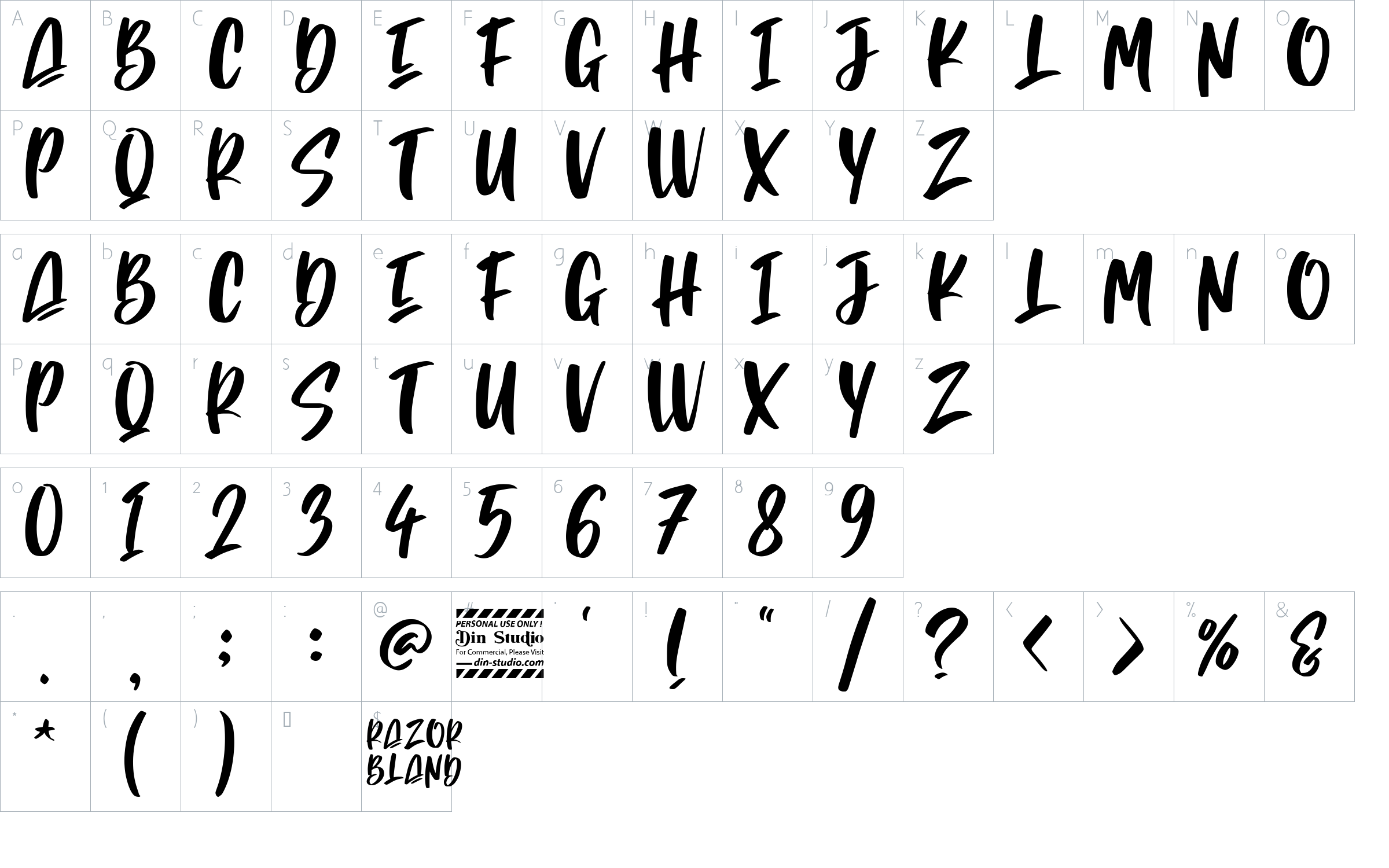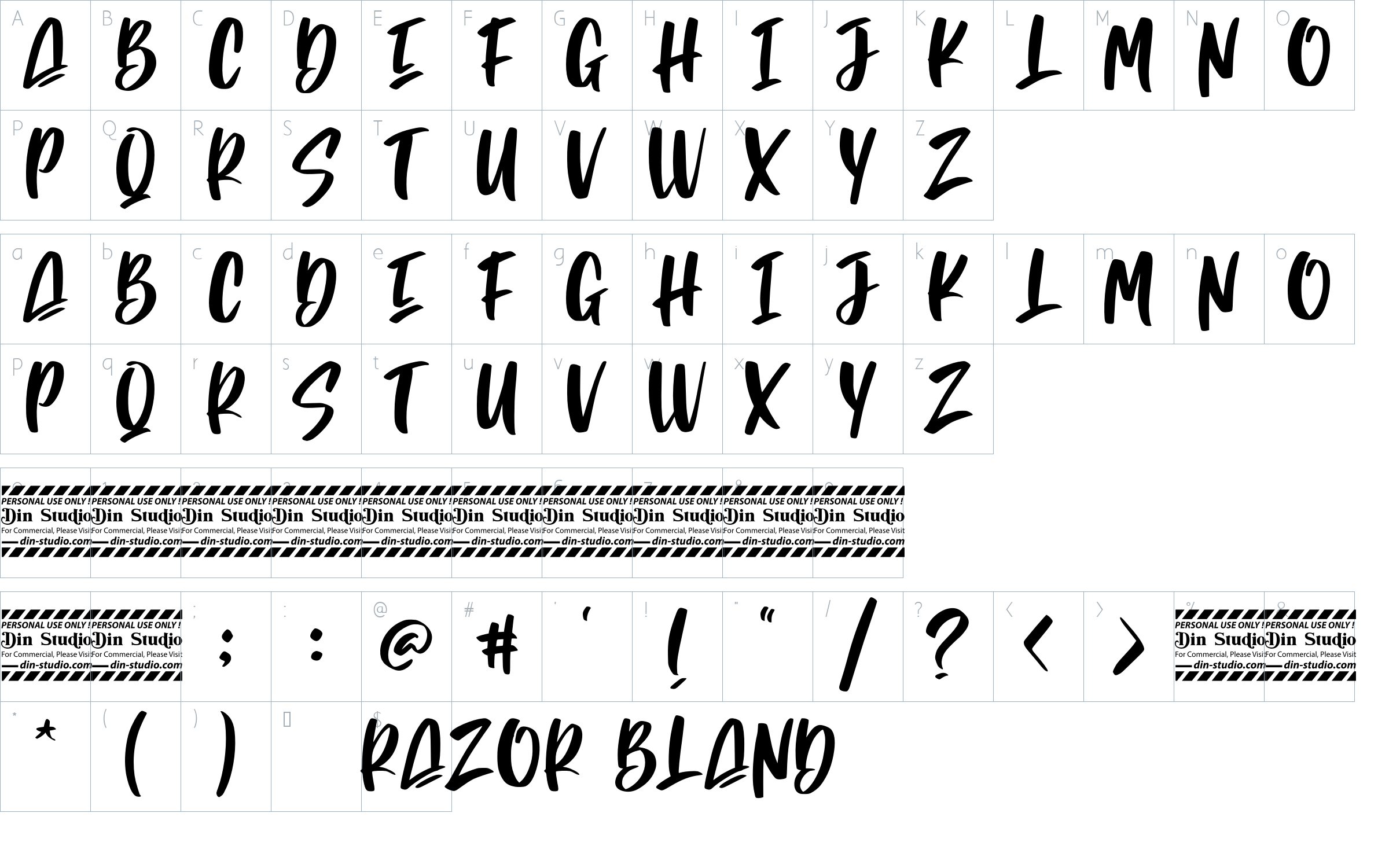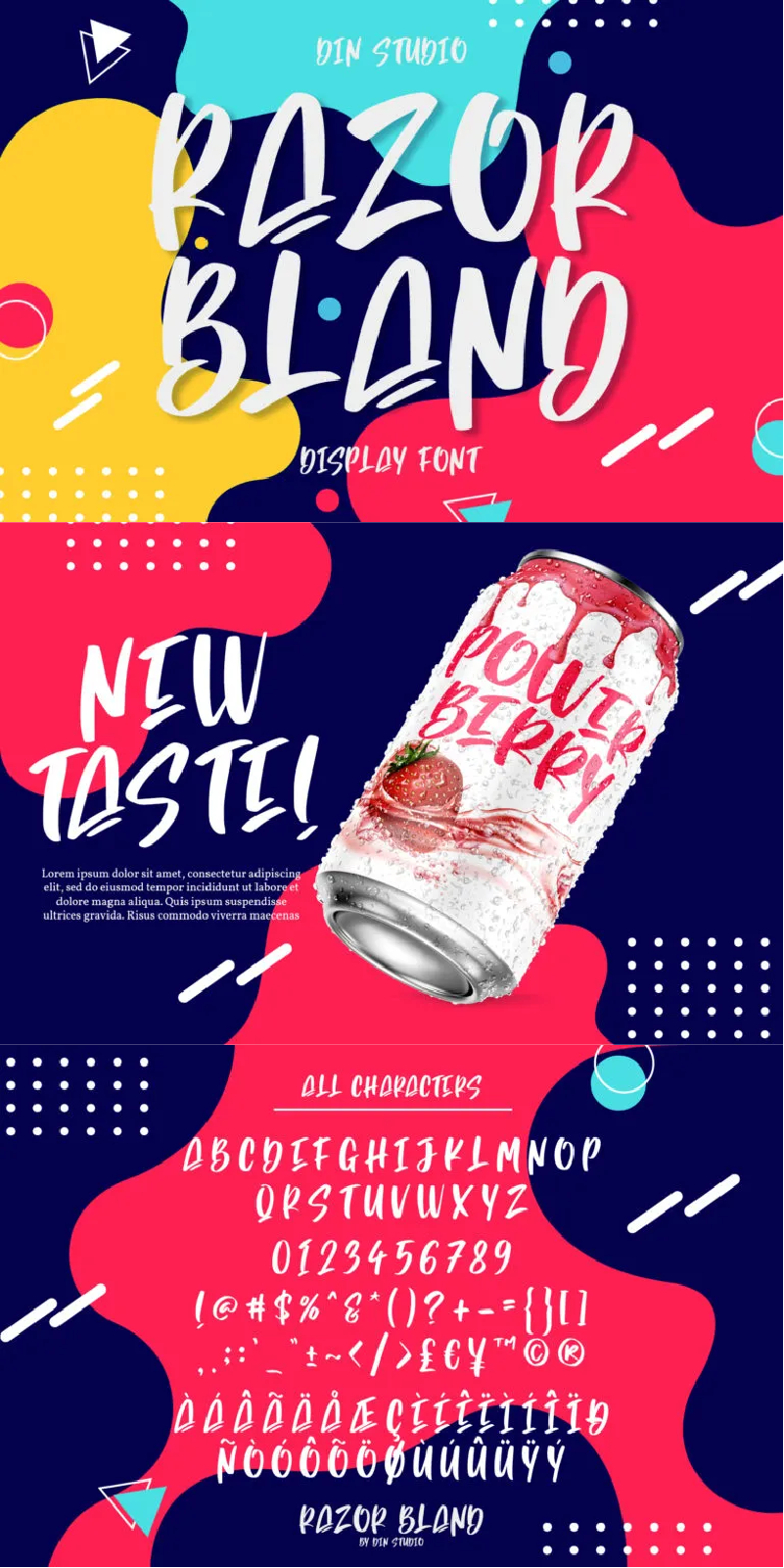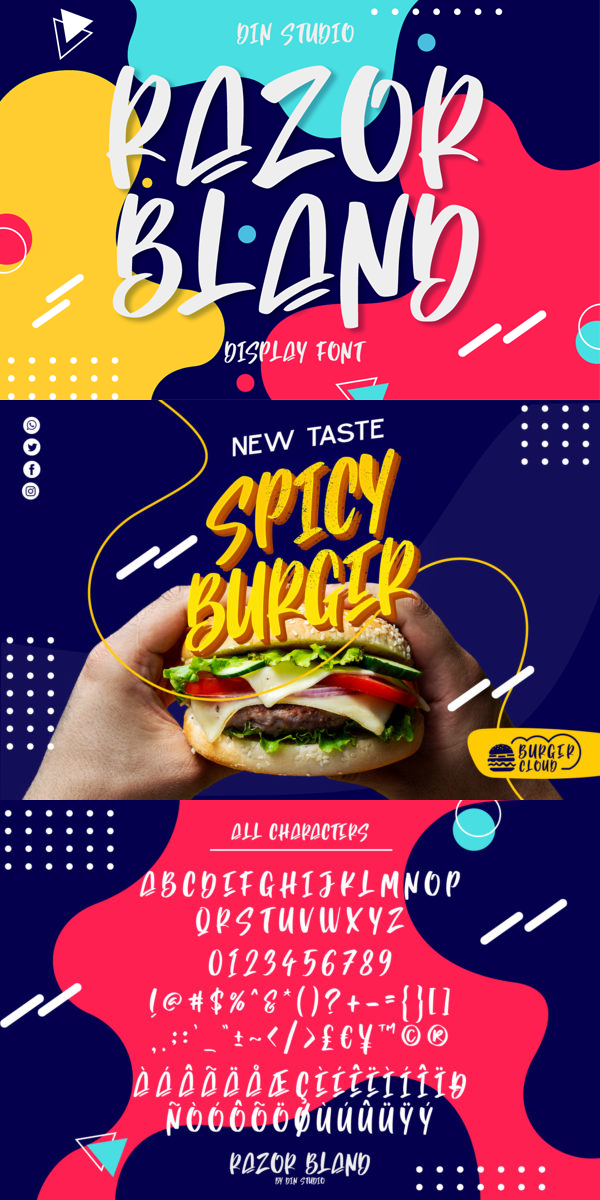
Razor Bland Font
About Razor Bland
Display Font – Razor Bland. Razor Bland is a classy display font. Made for any professional project branding. It is the best for logos, branding and quotes. Every letter has a unique and beautiful touch. See the previews above to get some inspiration on how you can use them. Enjoy the font!